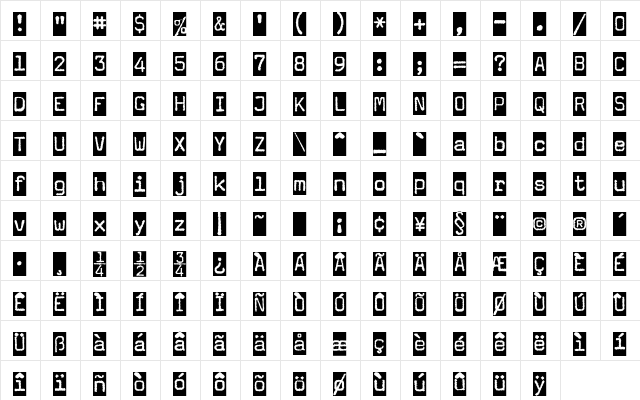
Magda Medium
Design Context for Magda
Magda is a composed and adaptable typeface that performs quietly and consistently across a wide range of design contexts.
Pro Tip: Use Magda in both headline and body roles to test its range before committing to a single application.